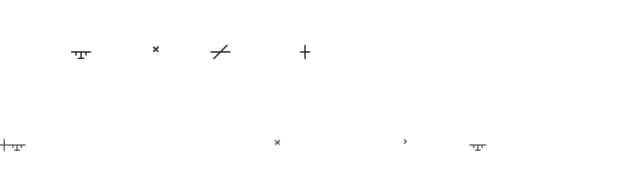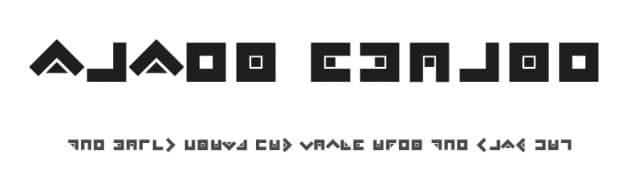
About Omnic Sans Font
Omnic Sans is a dingbat font designed by Aleksandr Savenkov. It includes 68 glyphs, a regular weight, OTF (CFF) format, and 91 languages. Omnic Sans is free to download; check the license details on this page before commercial use. Dingbat fonts like Omnic Sans work best for icons, ornaments, bullet points, and decorative accents.
| Designer | Aleksandr Savenkov |
Omnic Sans Font is a versatile dingbats font that works for both headings and body text. Pair it with a contrasting sans-serif or serif font to add visual interest and a clear distinction between titles and body copy.